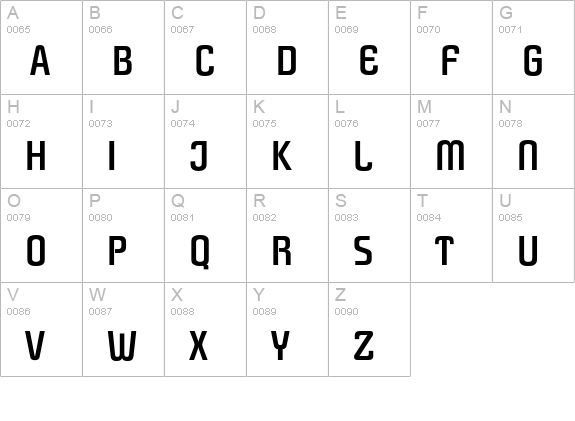
Pasadena-Medium Font Details
Pasadena-Medium is a balanced, medium-weight variant in the Pasadena typeface family \xE2\x80\x94 well suited to sub-headlines, navigation, and balanced editorial work.
Introducing Pasadena-Medium, a captivating and versatile font that effortlessly combines elegance with modernity. This font is the perfect choice for a wide range of creative projects, whether you're designing a logo, crafting a stunning website, or creating eye-catching advertisements. With its balanced and harmonious letterforms, Pasadena-Medium exudes a sense of sophistication and refinement. Every curve and stroke has been meticulously crafted to ensure a seamless and visually pleasing reading experience. The medium weight adds just the right amount of substance, making it suitable for both headings and body text. One of the most remarkable aspects of Pasadena-Medium is that it is free. Yes, you read that right - this extraordinary font is freely available to download at FontsMarket.com. This means that you can bring a touch of elegance and professionalism to your designs without having to spend a dime. So why wait? Embrace the beauty and versatility of Pasadena-Medium and elevate your designs to new heights. Whether you're a seasoned designer or just starting out, this font is sure to become an invaluable tool in your creative arsenal. Download Pasadena-Medium today and discover a world of possibilities for your next project.